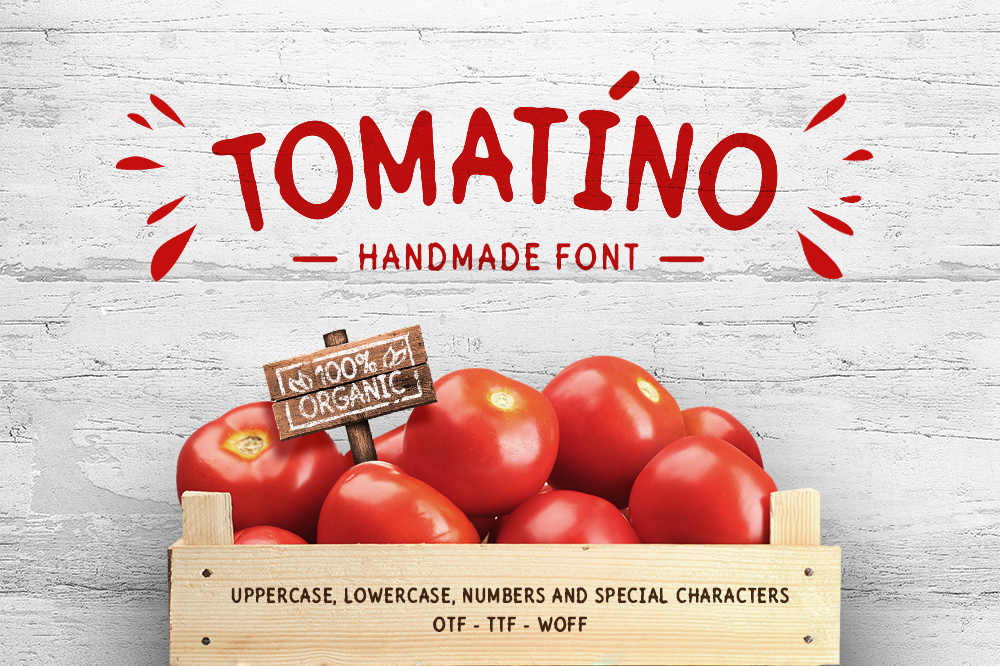
Tomatino. Handmade Sans Serif Font
Tomatino-Regular
And today I'm glad to introduce my new handmade sans-serif font Tomatino.
Foreign Languages Support:
- ÀÁÂÃÄÅÇÈÉÊËÌÍÎÏÑÒÓÔÕÖØÙÚÛÜÝßàáâãäåæçèéêëìíîïñòóôõöøùúûüýÿ